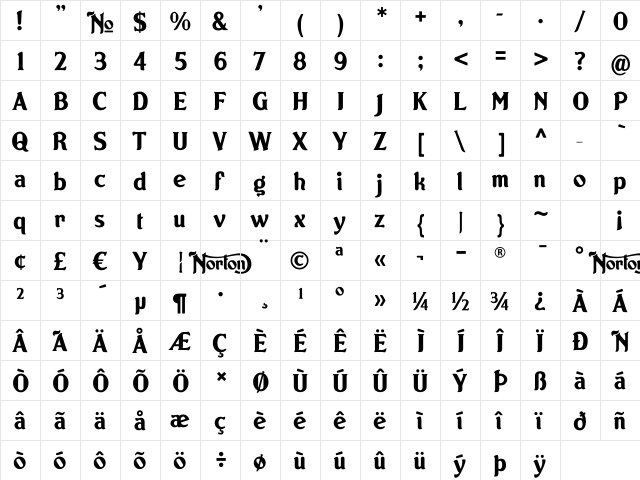
Norton Regular Font Preview
Norton Regular
Norton Regular Font Details
Design Context for Norton Typeface
Norton takes a measured approach to typography — its balanced proportions and neutral character make it a reliable workhorse for both digital and print work.